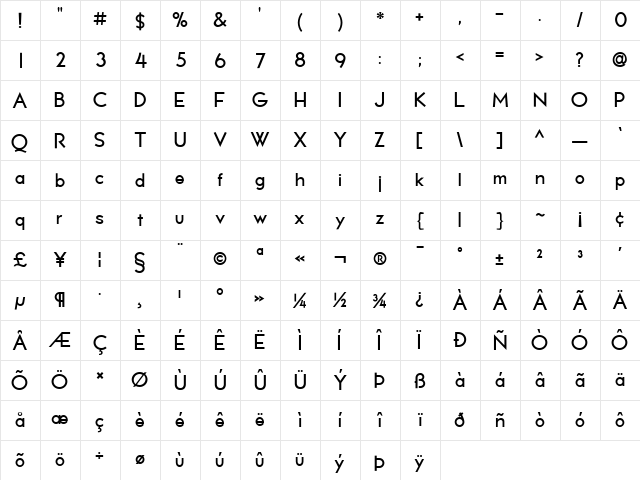
LionelTextGenuine Regular
Design Context for LionelTextGenuine Typeface
LionelTextGenuine takes a measured approach to typography — its balanced proportions and neutral character make it a reliable workhorse for both digital and print work.